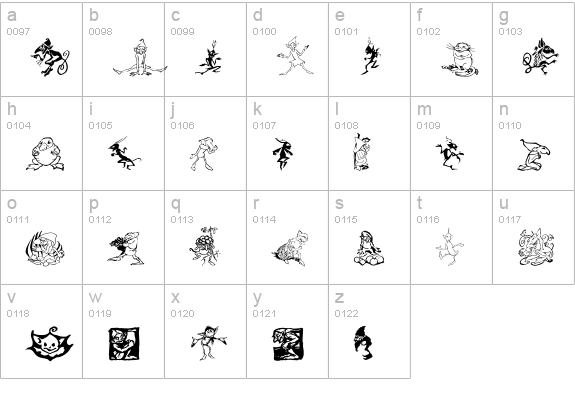
Goblins Font Details
Goblins font is a whimsical and playful typeface that adds a touch of mischief to any project. With its quirky characters and unique design, this font is perfect for creating eye-catching headlines, posters, and branding materials. The Goblins font is available for free download at FontsMarket.com, making it accessible to designers and creatives looking to add a fun and energetic element to their work. Let Goblins font bring a sense of fun and charm to your designs today!